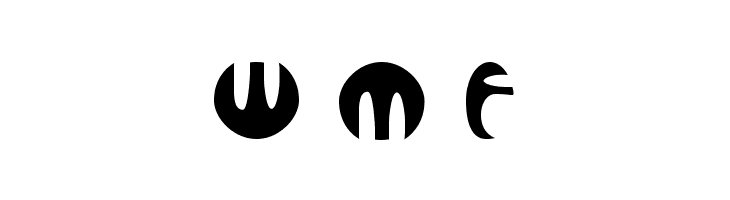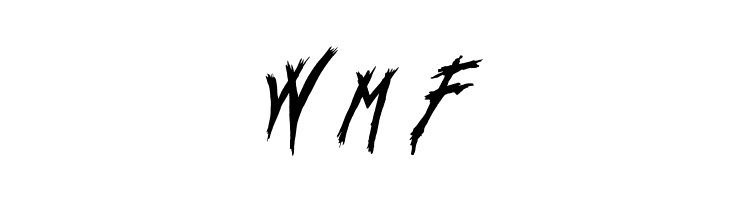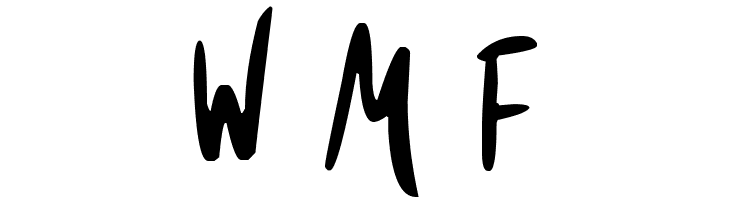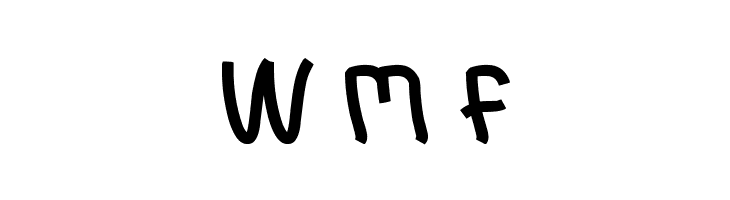
• Every end is a new beginning
A casual, handwritten font with a playful and informal style.
• Everyday
• Everyone Heart
• EVERYTHINK OKAY
A bold, playful font with rounded, whimsical characters.
• Evora
A bold, jagged font with high contrast and dynamic slanted letters.
• Expressive Inks
A bold, hand-drawn font with a playful and expressive style.
• Expro Type
A bold, brush-like font with an expressive and dynamic style.
• Extraordinary Bold
A bold, playful handwritten font with a casual and energetic style.
• EXTRAORDINARY CRAFT
A modern, rounded font with a playful and cohesive design.
• EXTRAORDINARY CRAFT
• Fabeltiere04
A decorative font with mythical creature silhouettes, perfect for fantasy-themed projects.
• Fabregas
A dynamic and elegant script font with fluid, connected letterforms.
• Fadetta
A dynamic handwritten font with fluid strokes and a natural flow.
• Falicia
A flowing, cursive font with a natural handwritten style.
• Fantasque Sans Mono Bold
A bold, monospaced font with a playful and modern aesthetic.
• Fantasque Sans Mono Bold Italic
A bold, italicized monospaced font with a modern and playful style.
• Fantasque Sans Mono Italic
A monospaced, italic font with a playful and modern style.
• Fantasque Sans Mono Regular